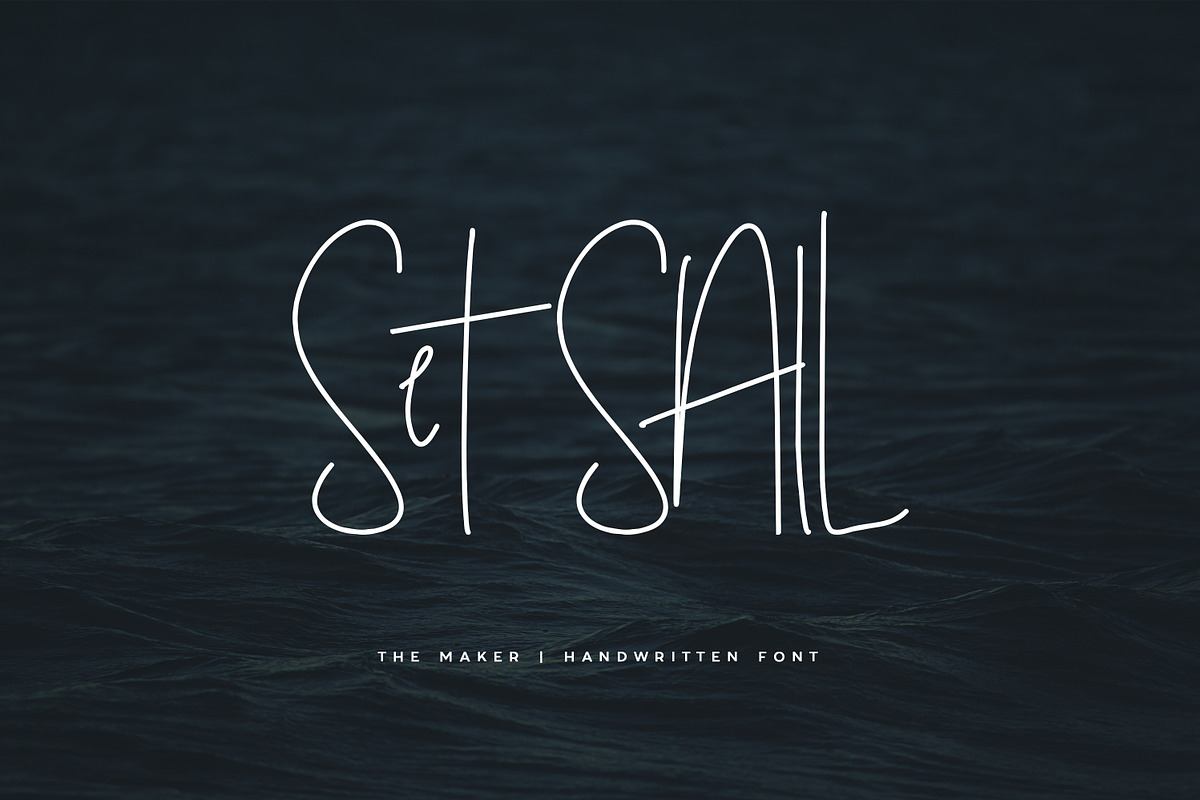
The Maker | Handwritten Font Free Download
Elegant, authentic, and full of character, The Maker | Handwritten Font Free Download is a beautifully crafted handwritten typeface designed to bring a personal touch to your designs. Perfect for logos, branding, invitations, social media graphics, greeting cards, and more, this font captures the essence of natural handwriting with a sophisticated twist.
With its smooth strokes, fluid letterforms, and unique style, The Maker offers a refined, yet casual look that makes it ideal for both professional and creative projects. Whether you're designing a brand identity, creating a heartfelt invitation, or adding personality to a social media post, this font adds warmth and charm to your typography.